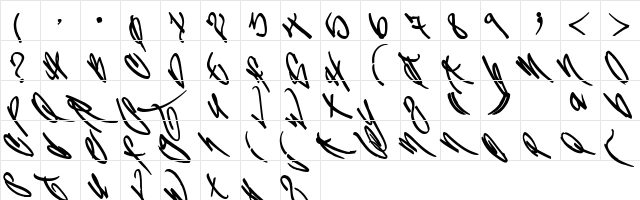
SameGang Regular
| Foundry | Matthew Napolitano / Daniel Gutierrez |
| Designer | Matthew Napolitano / Highground Industries |
Design Context for SameGang Typeface
SameGang is a composed and adaptable typeface that performs quietly and consistently across a wide range of design contexts.